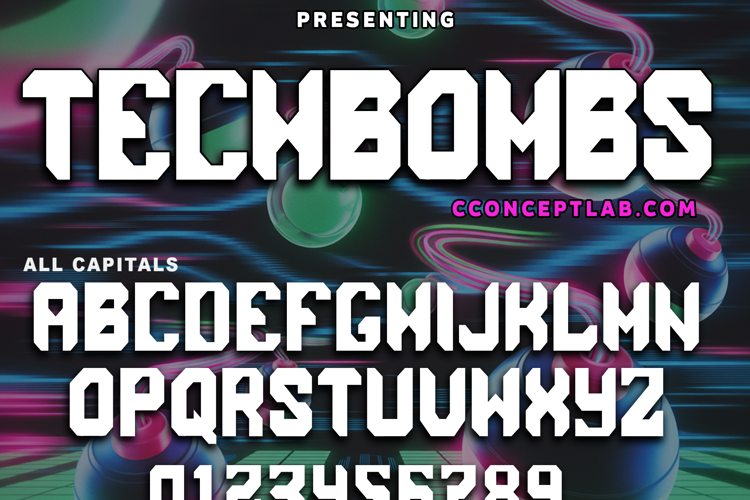
TechBombs Font
TECHBOMBS
- Bold sci-fi display font perfect on your projects, event posters, music covers, etc.
- Computer tech theme font for branding, marketing, website, mobile app etc.